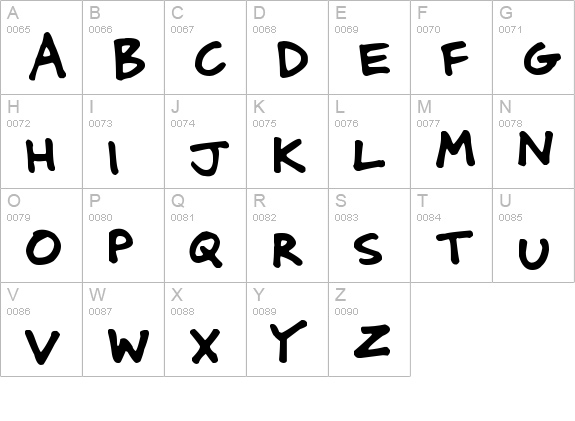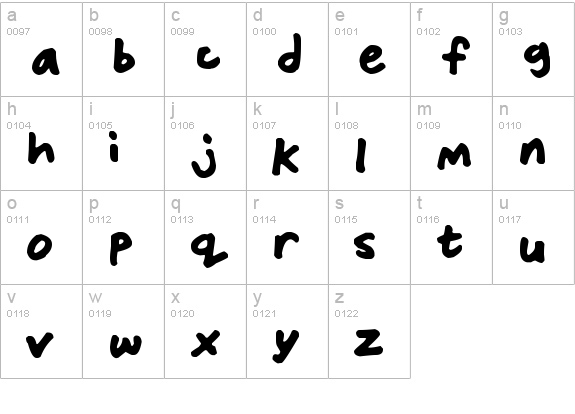
Friendly Felt Tips Font Details
Friendly Felt Tips is a free for personal use font in the Script > Handwritten category, designed by Darrell Flood. It has been downloaded 162 times and is available for Windows, Mac and Linux.
Friendly Felt Tips font is a whimsical and charming typeface that brings a sense of warmth and playfulness to any design project. With its hand-drawn appearance and rounded edges, this font exudes a friendly and inviting vibe that is perfect for adding a touch of personality to greeting cards, invitations, posters, and more.
The unique texture of the Friendly Felt Tips font gives it a cozy and approachable feel, making it an ideal choice for conveying a sense of comfort and friendliness in your designs. Whether you're creating a logo for a children's brand or designing a fun social media post, this font is sure to bring a smile to your audience's faces.